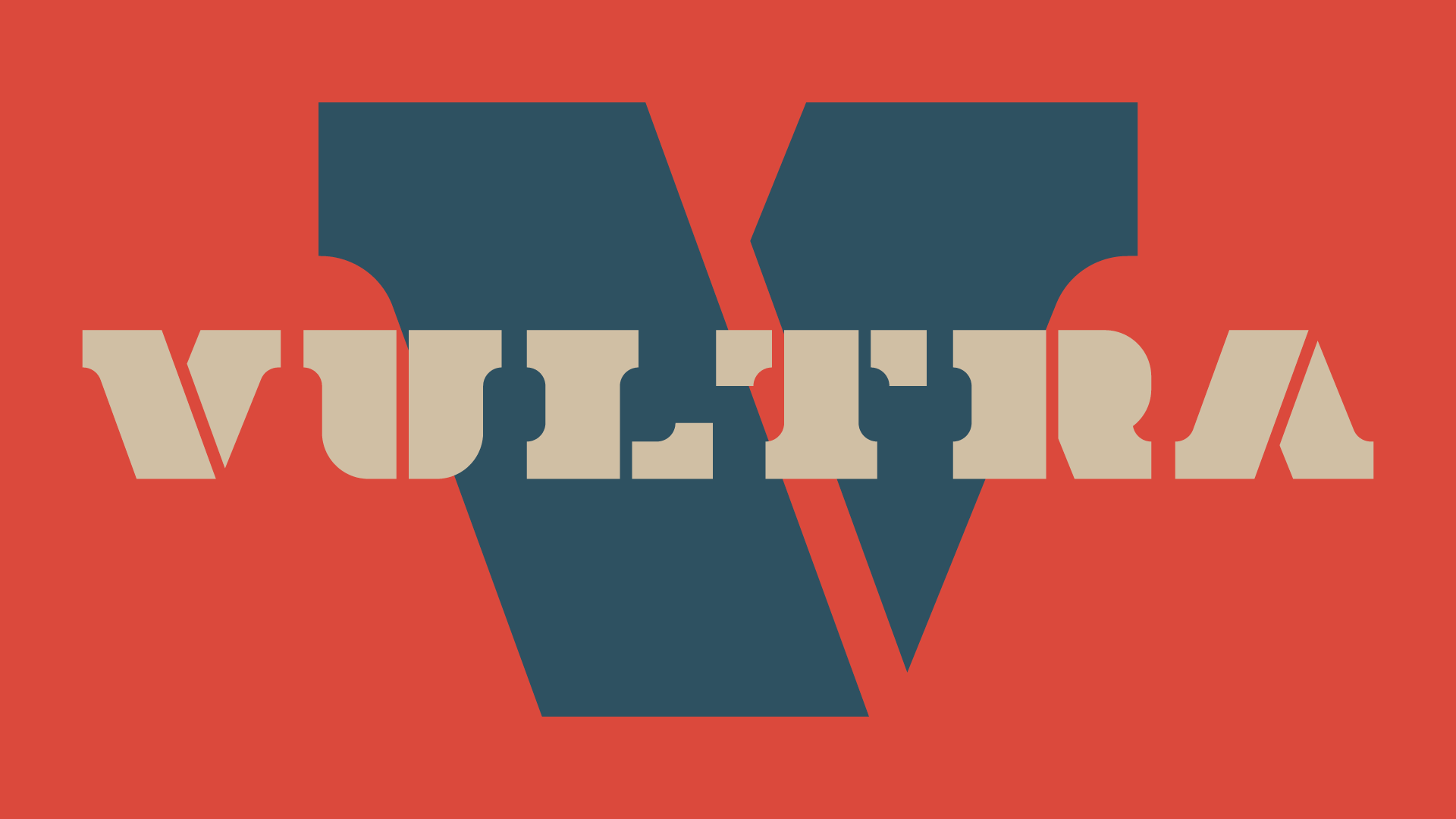
VULTRA TYPEFACE
Vultra brings battle-ready character with a heavy-weight military stencil typeface inspired by the World War II era. Its rugged cutouts and utilitarian style evoke the grit of vintage equipment and wartime posters. Perfect for branding, packaging, and displays that need a commanding, nostalgic punch.
Uppercase with NUMERALS